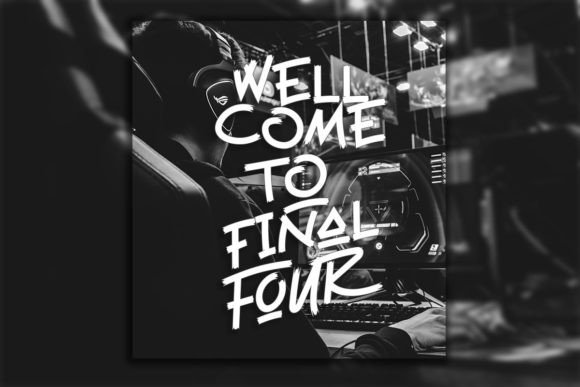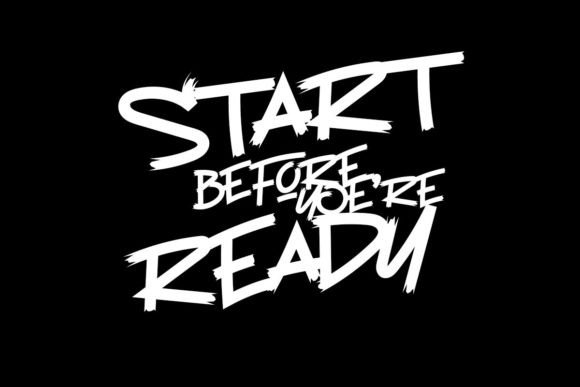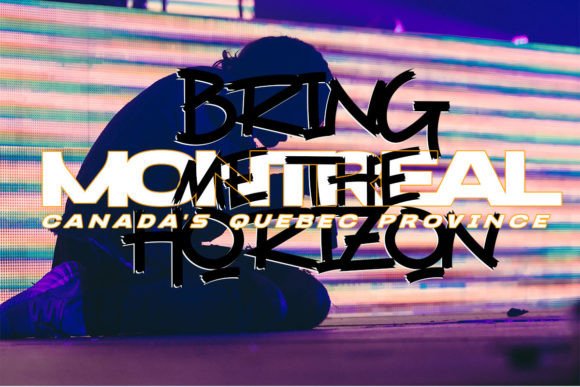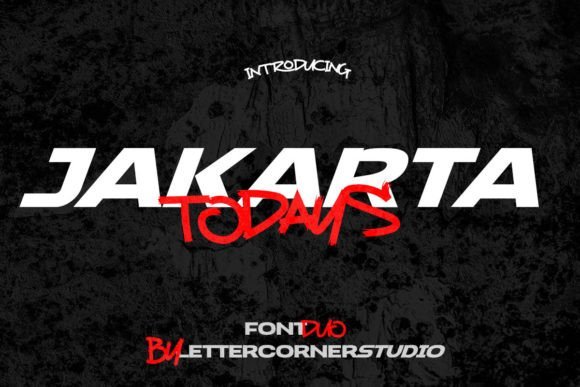
Introduction to Jakarta Todays Duo Font
Introducing Jakarta Todays Duo font.
A hand-made brush display typeface inspired by 80s-90s music, retro, disco, grunge, and pop culture Add it confidently to your projects and you will love the results.
Key Features of Jakarta Todays Duo Font